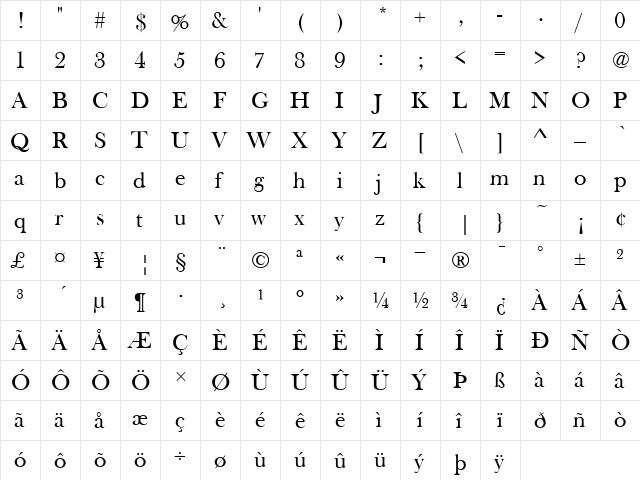
Baskerville Old Face D Regular
Design Context for Baskerville Old Face D Typeface
Baskerville Old Face D offers clean, dependable letterforms without strong stylistic allegiance, making it a practical choice for designers who need flexibility.
Pro Tip: Pair Baskerville Old Face D with a font of contrasting weight or personality to build a more expressive typographic hierarchy.